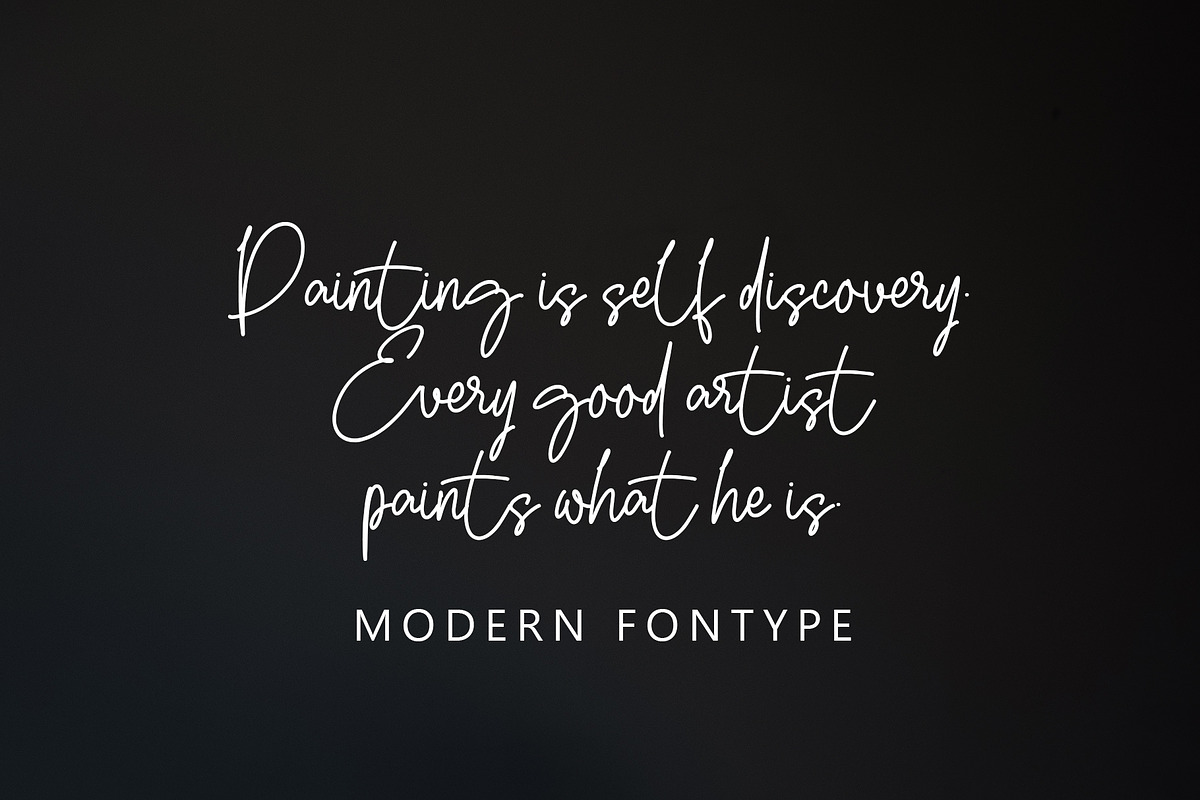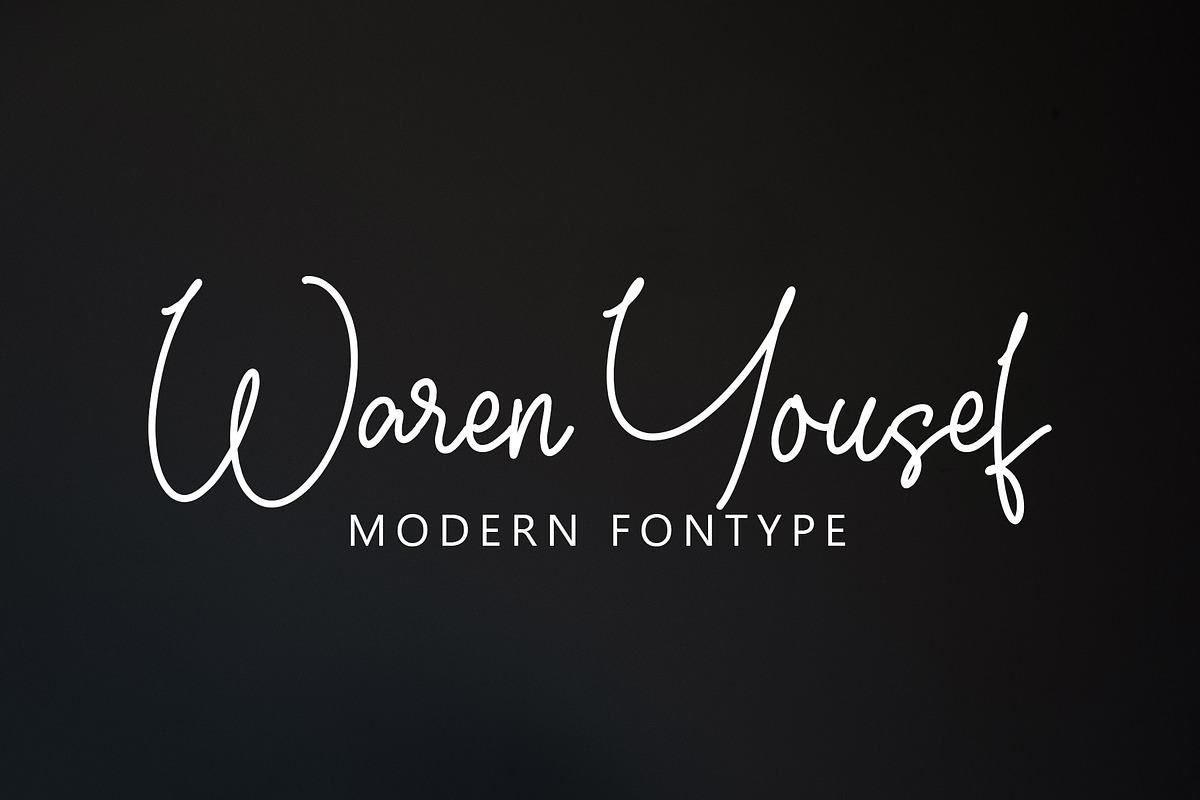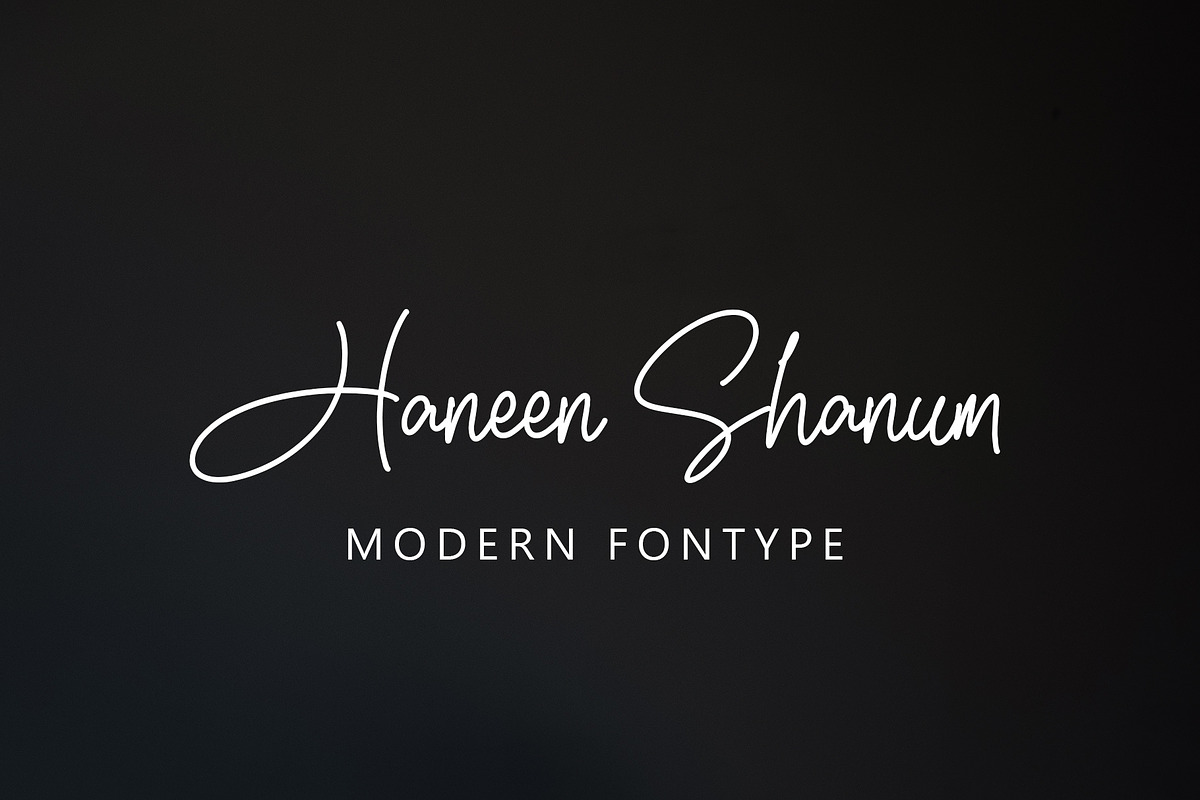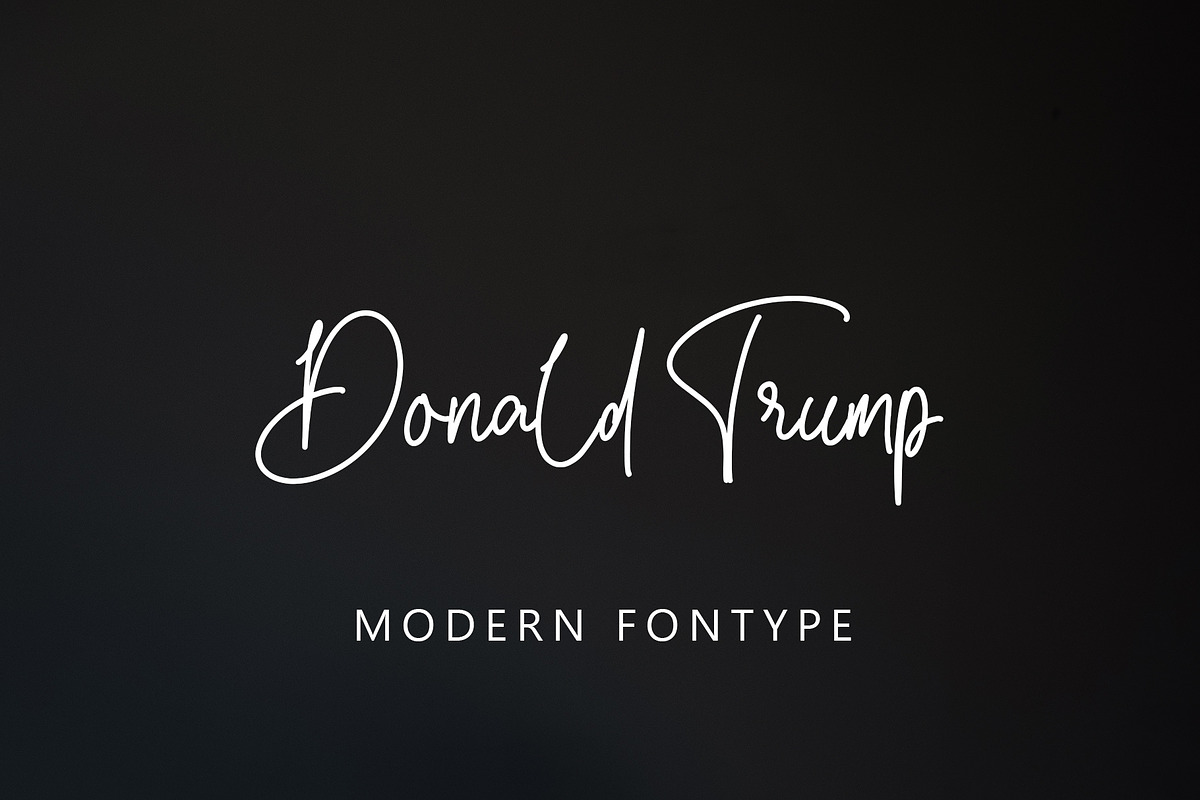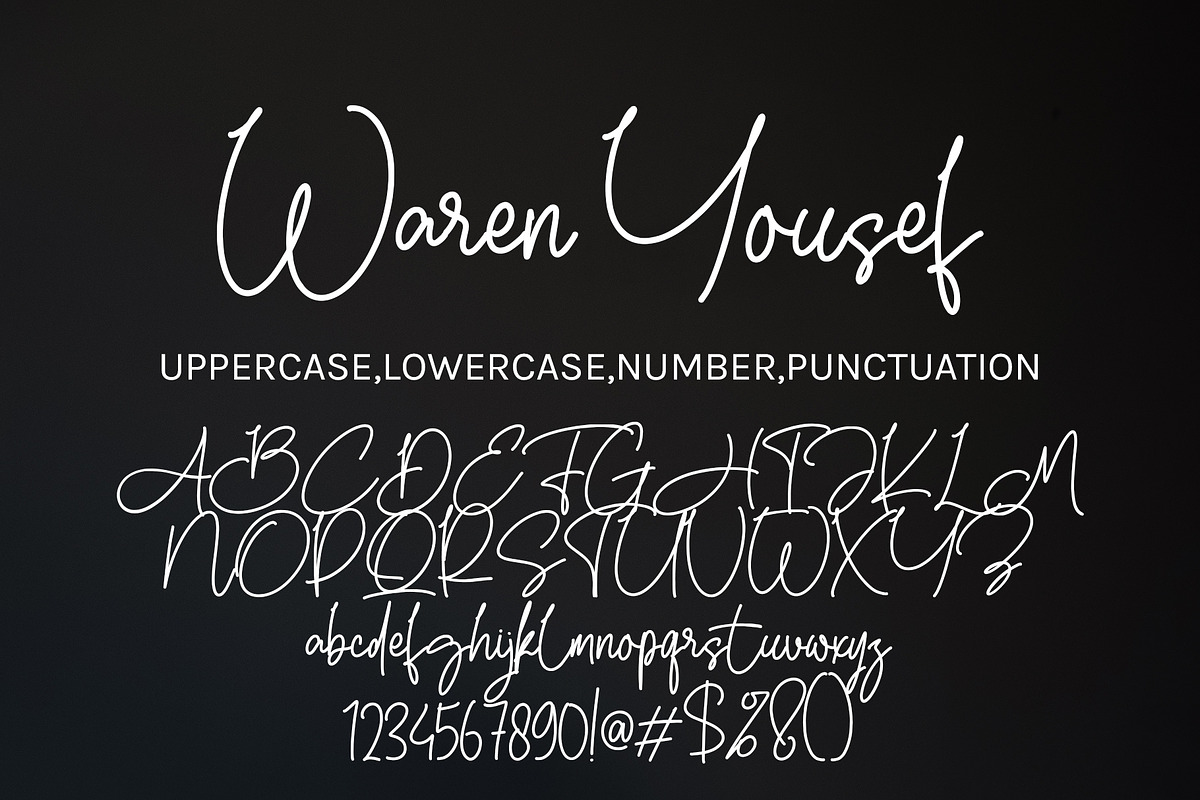
Waren Yousef
Waren Yousef with new style, this font will perfect for many different project ex: quotes, logo, blog header, poster, banding, letter, invitation, stationery, etc...